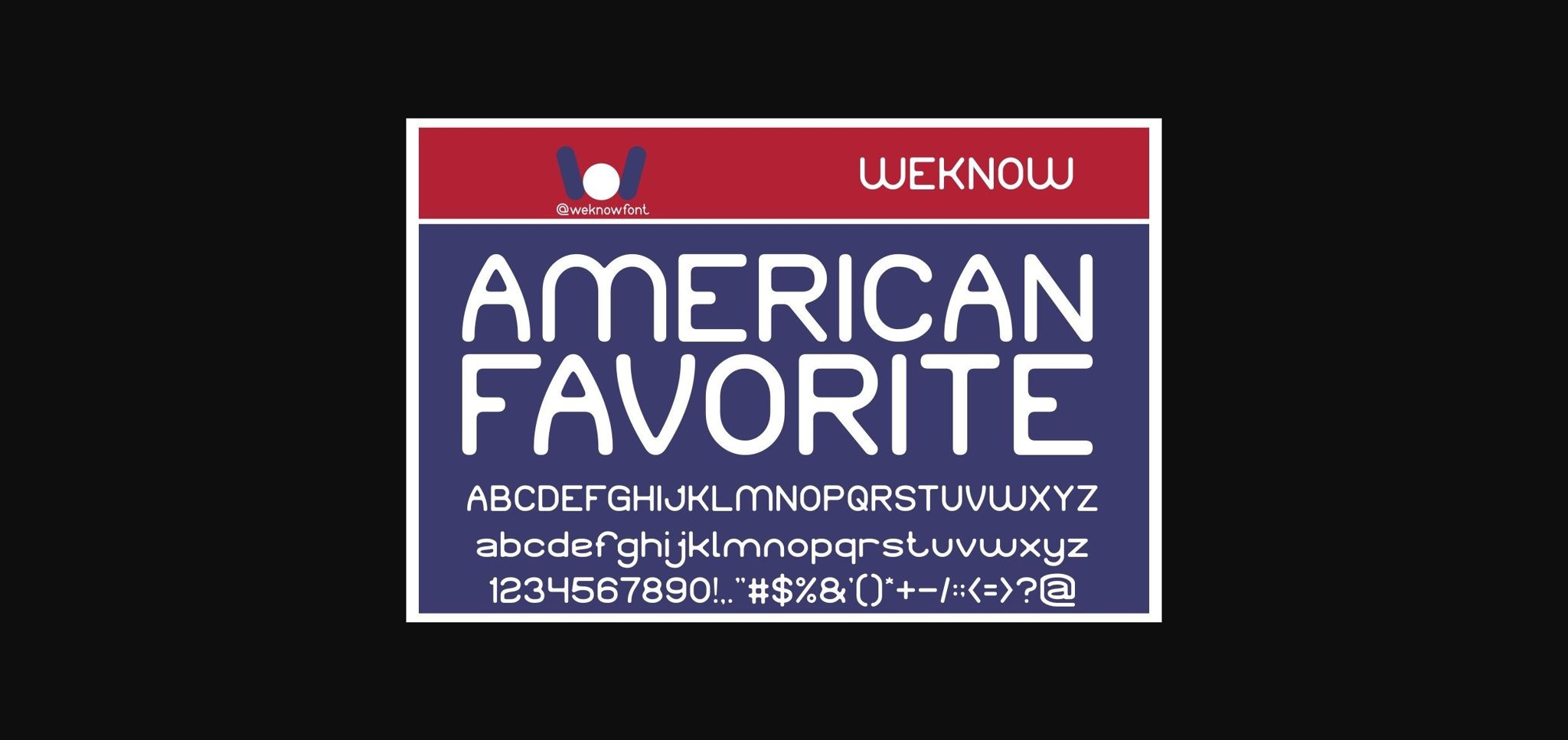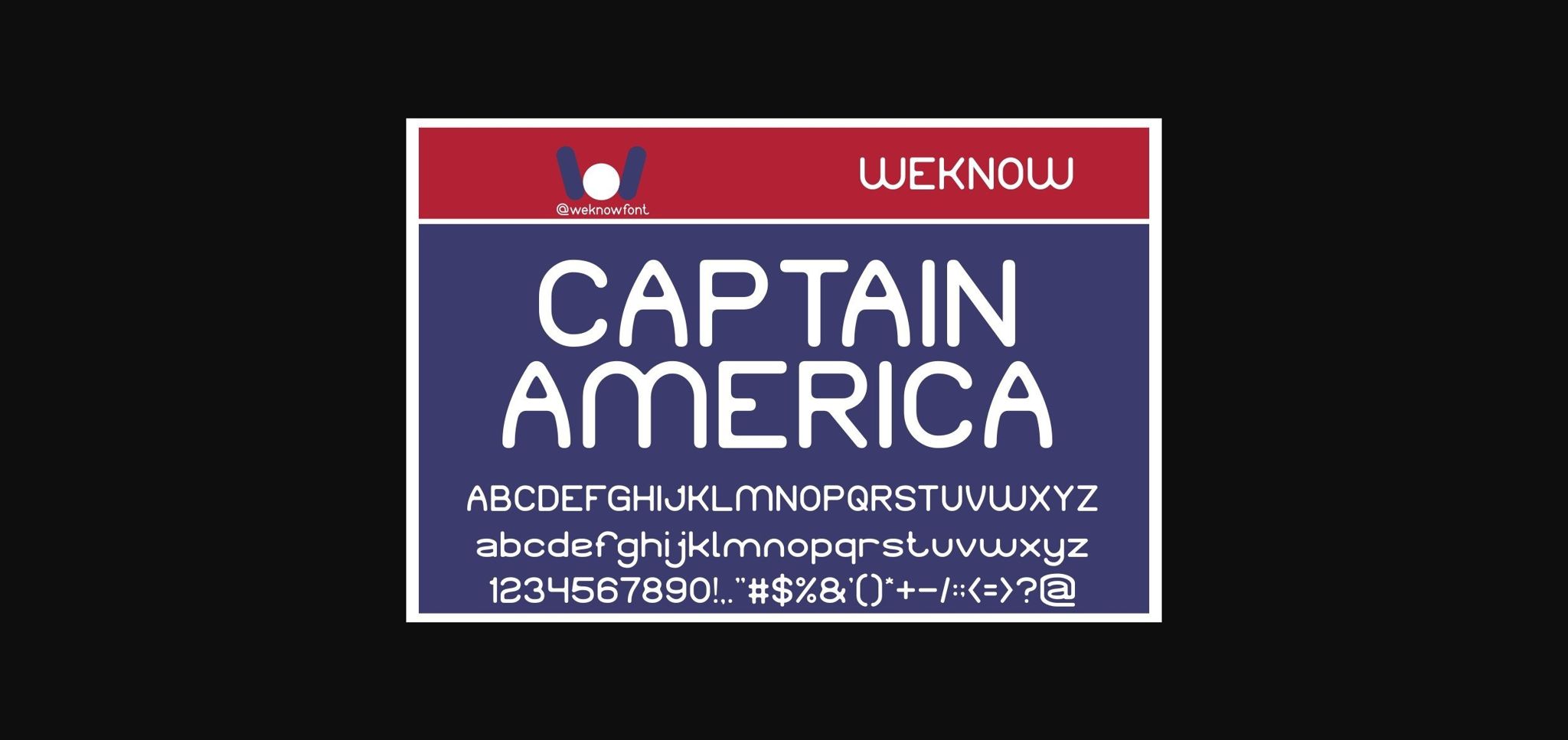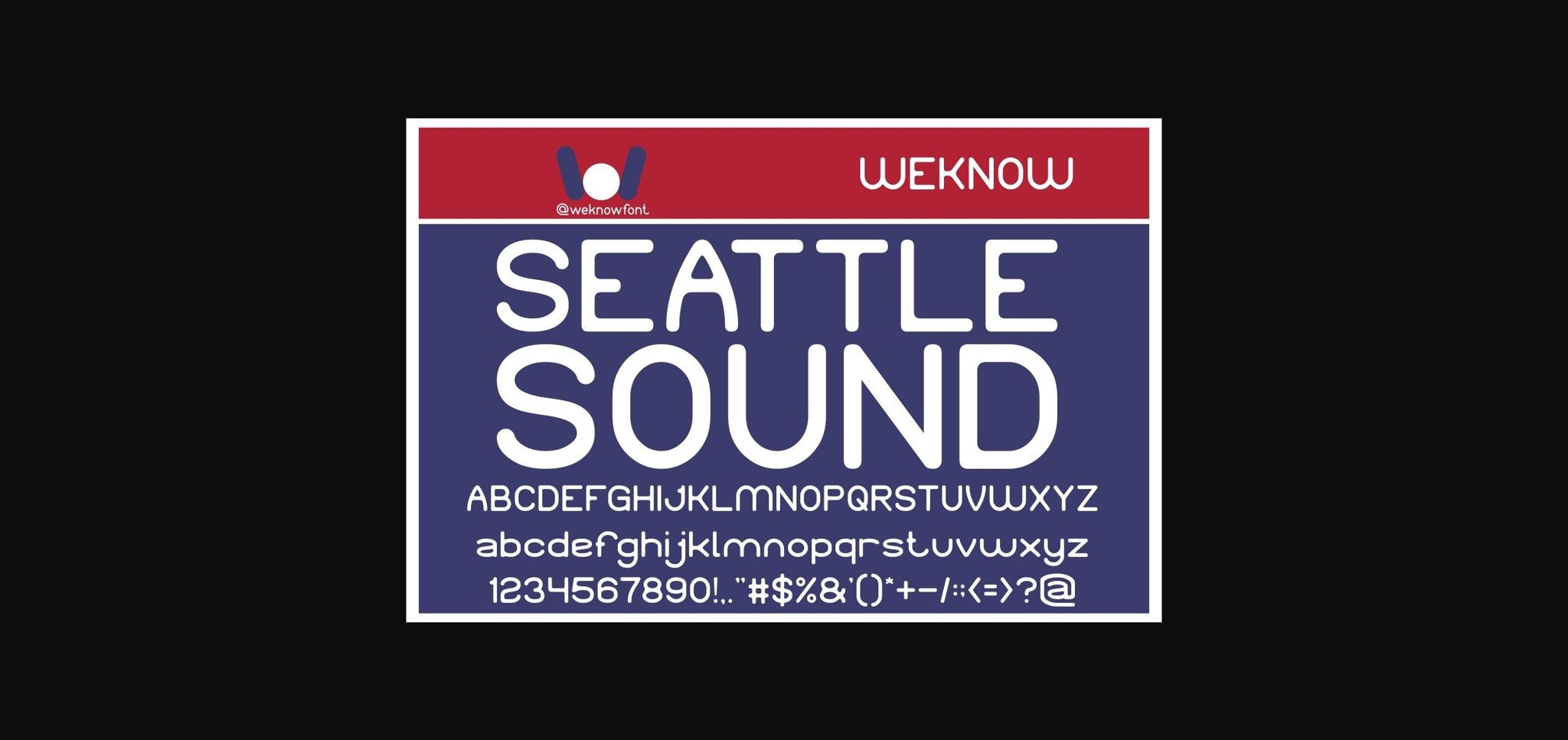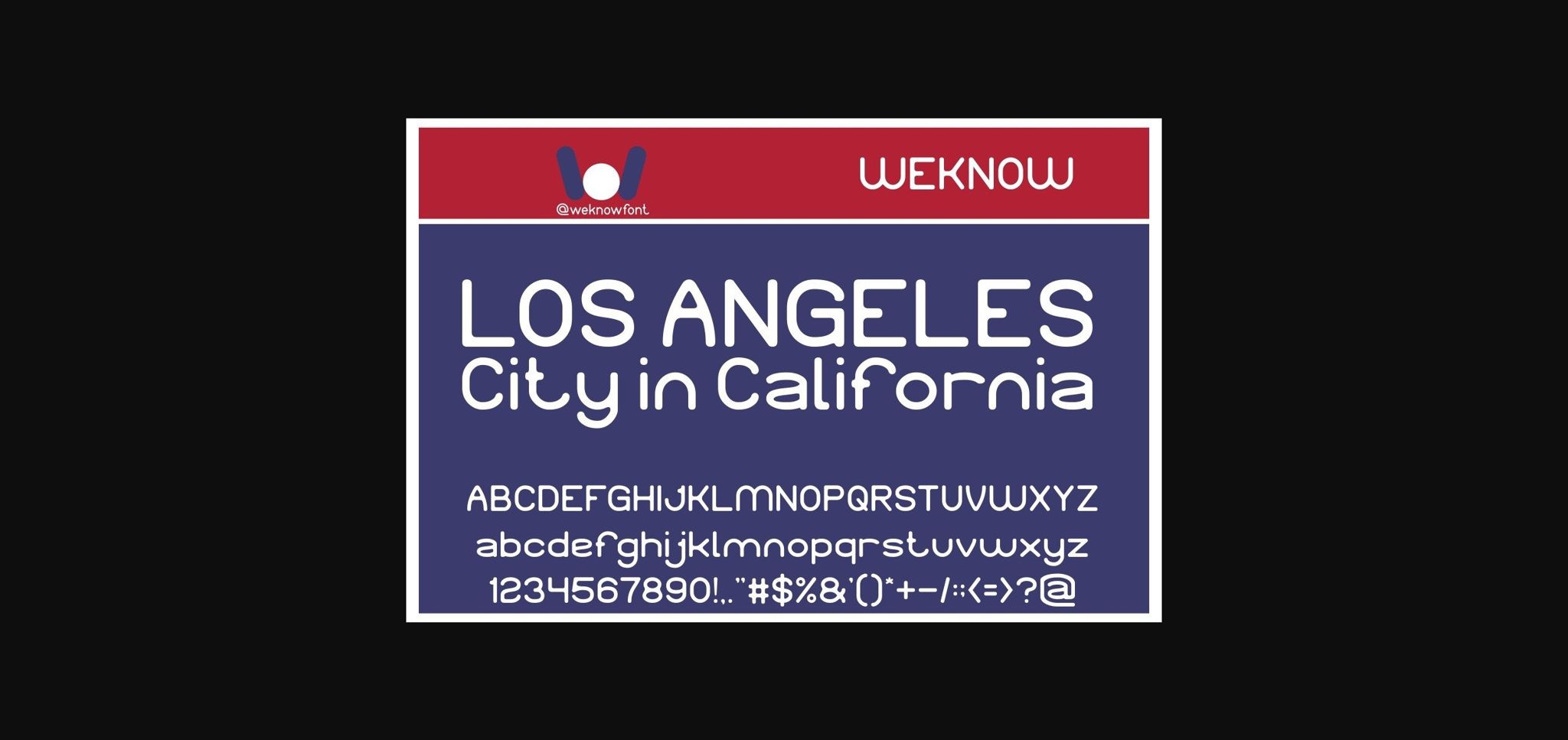
American Favorite Font
About American Favorite Font
American Favorite is a modern and smooth sans serif font. This font evokes a fun yet confident personality with striking details on each side of the lettering. Whether you’re creating a vintage-inspired project or want to add a classic look to your visuals, this font is a perfect choice.